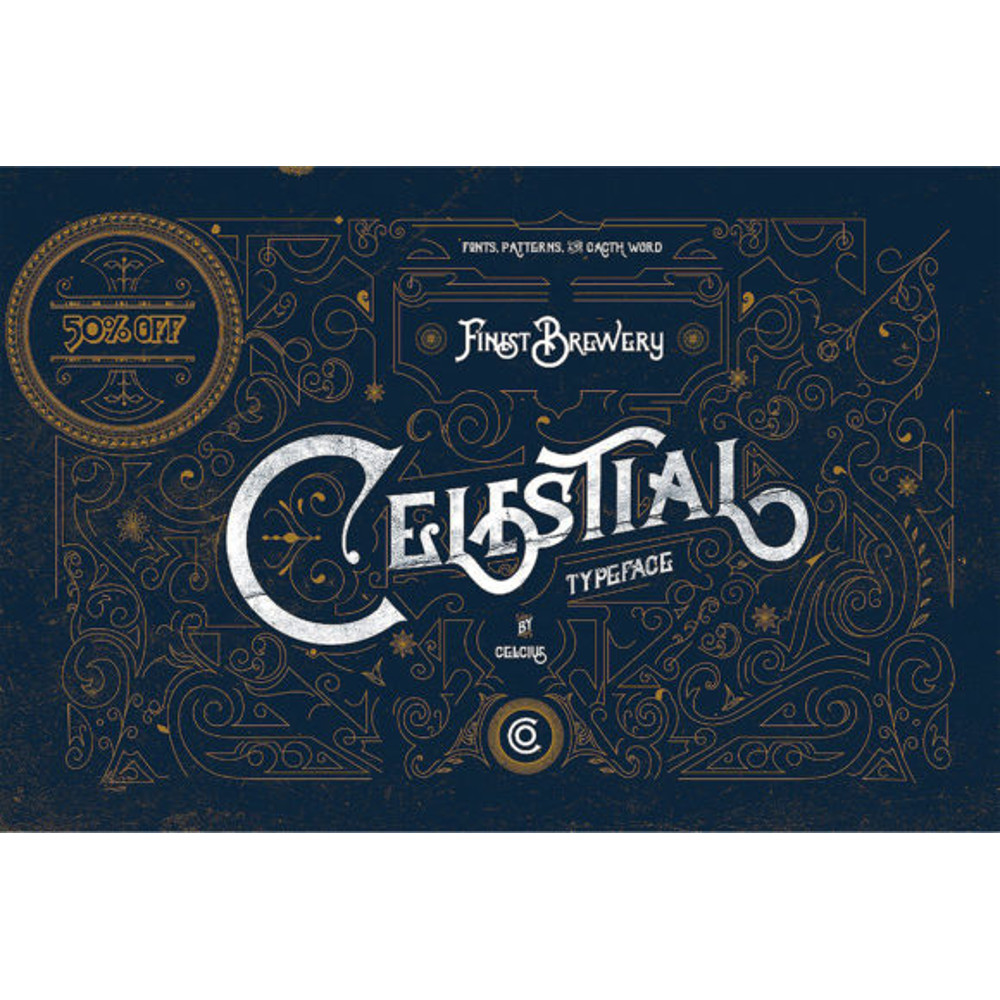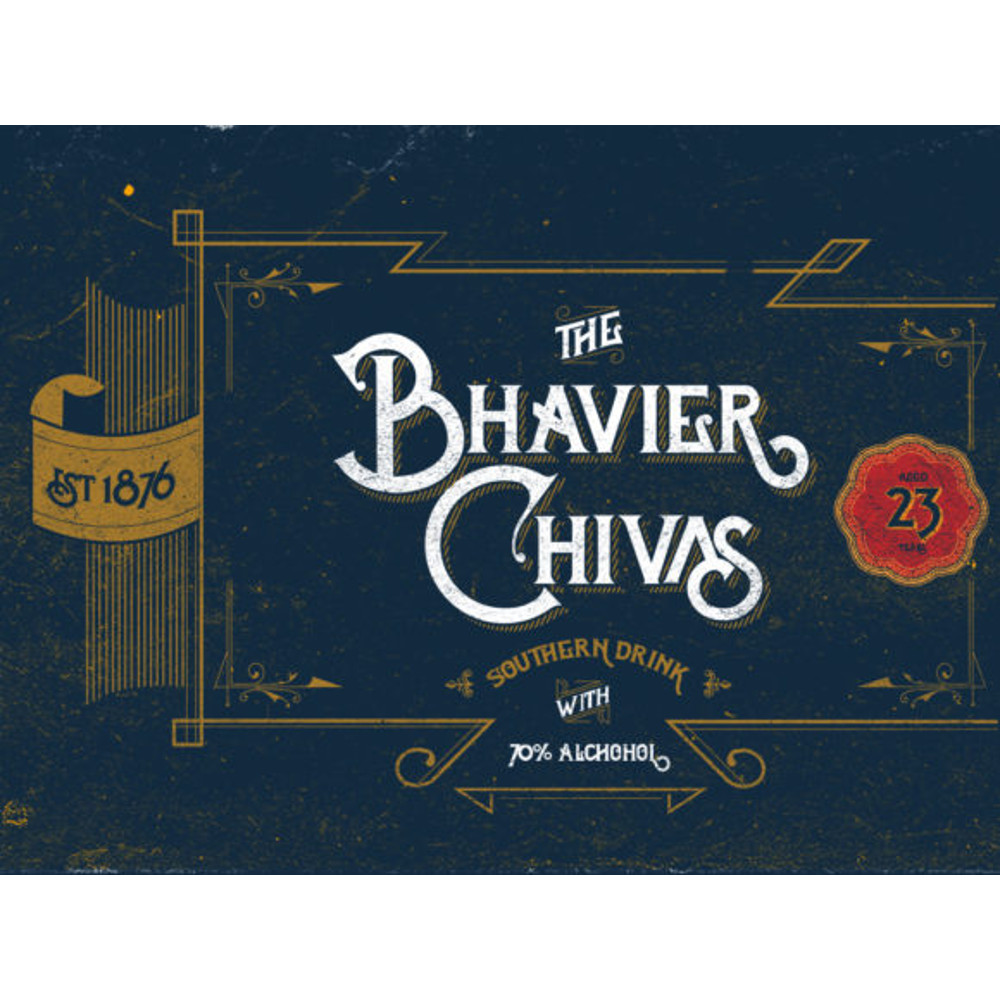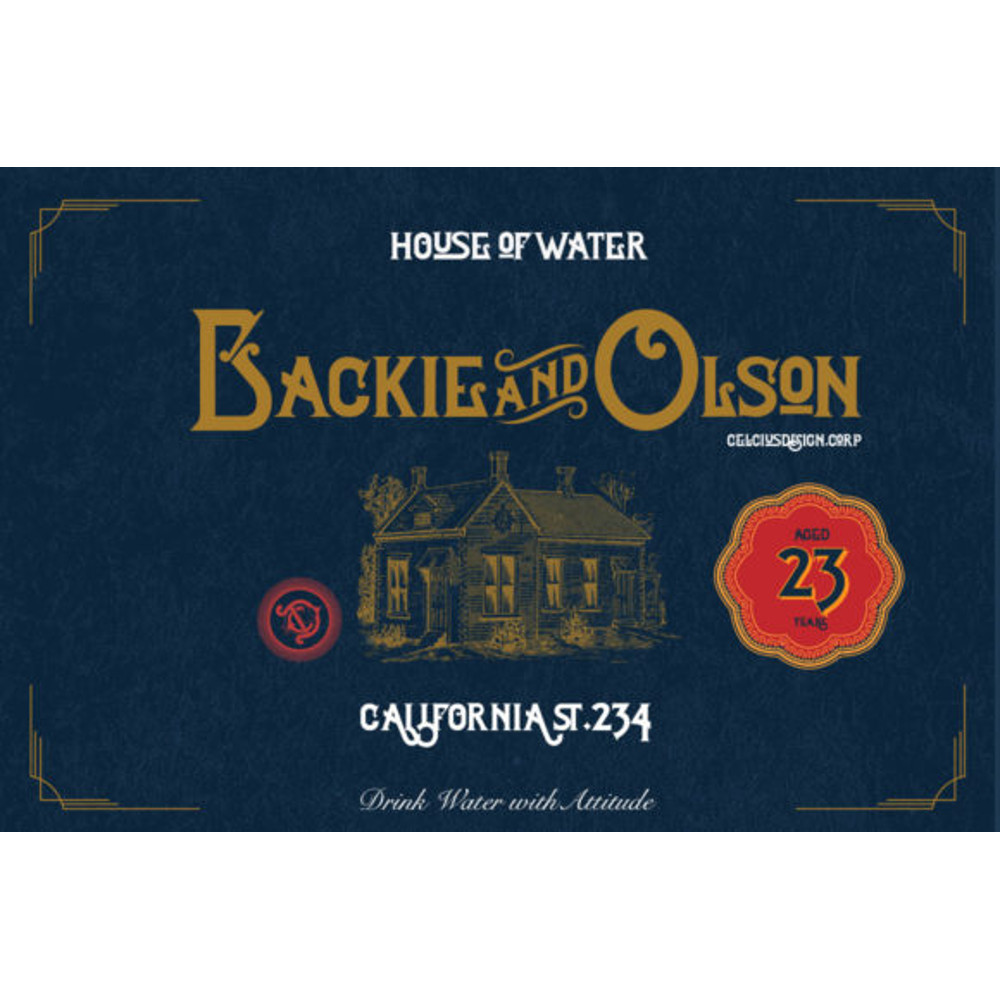
Celestial Font
Celestial is a vintage styled, daring display font, crafted to give your headlines and logotype projects a stylish touch. This font reads as strong, confident, and dynamic and can add tons of nostalgic character to your designs.